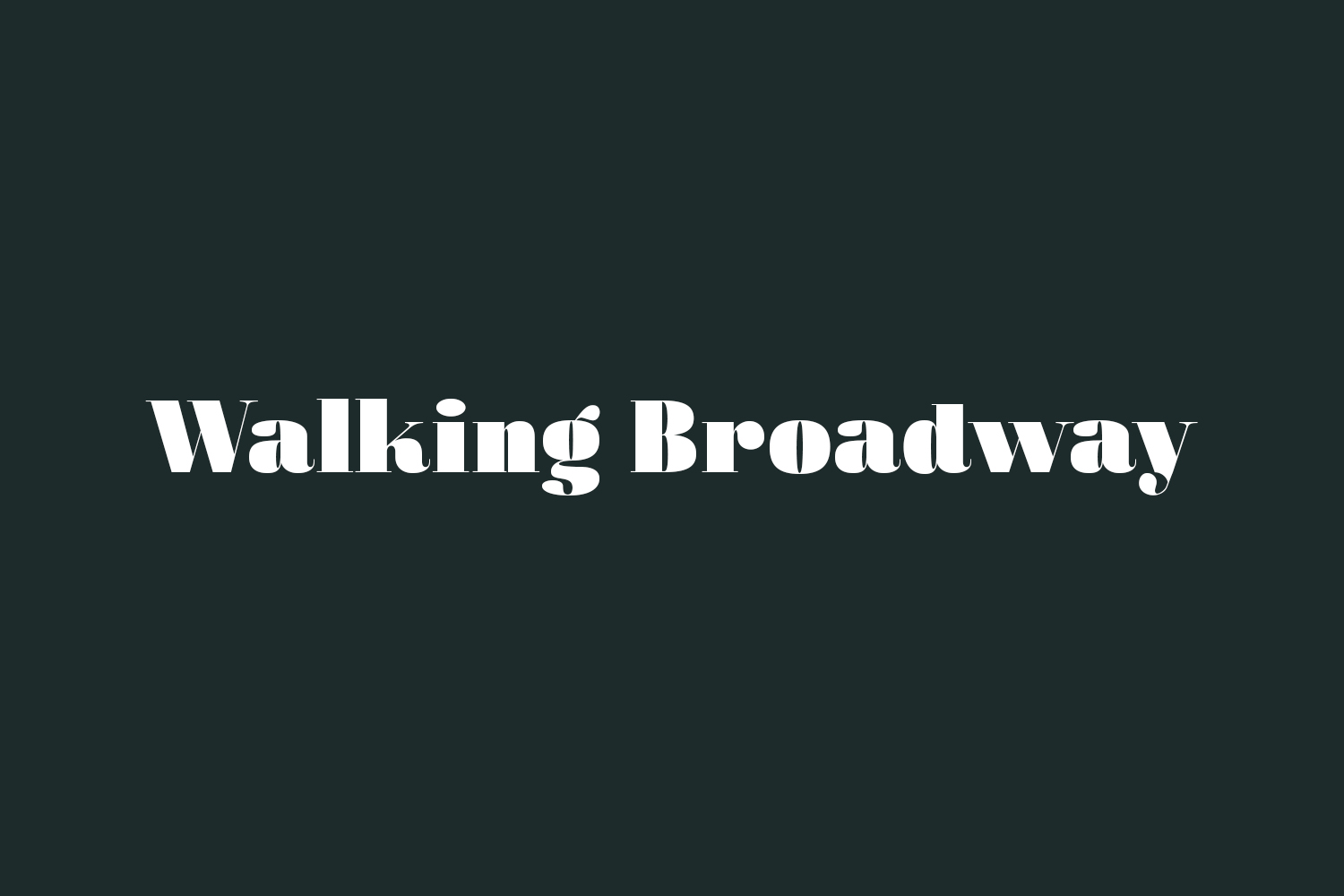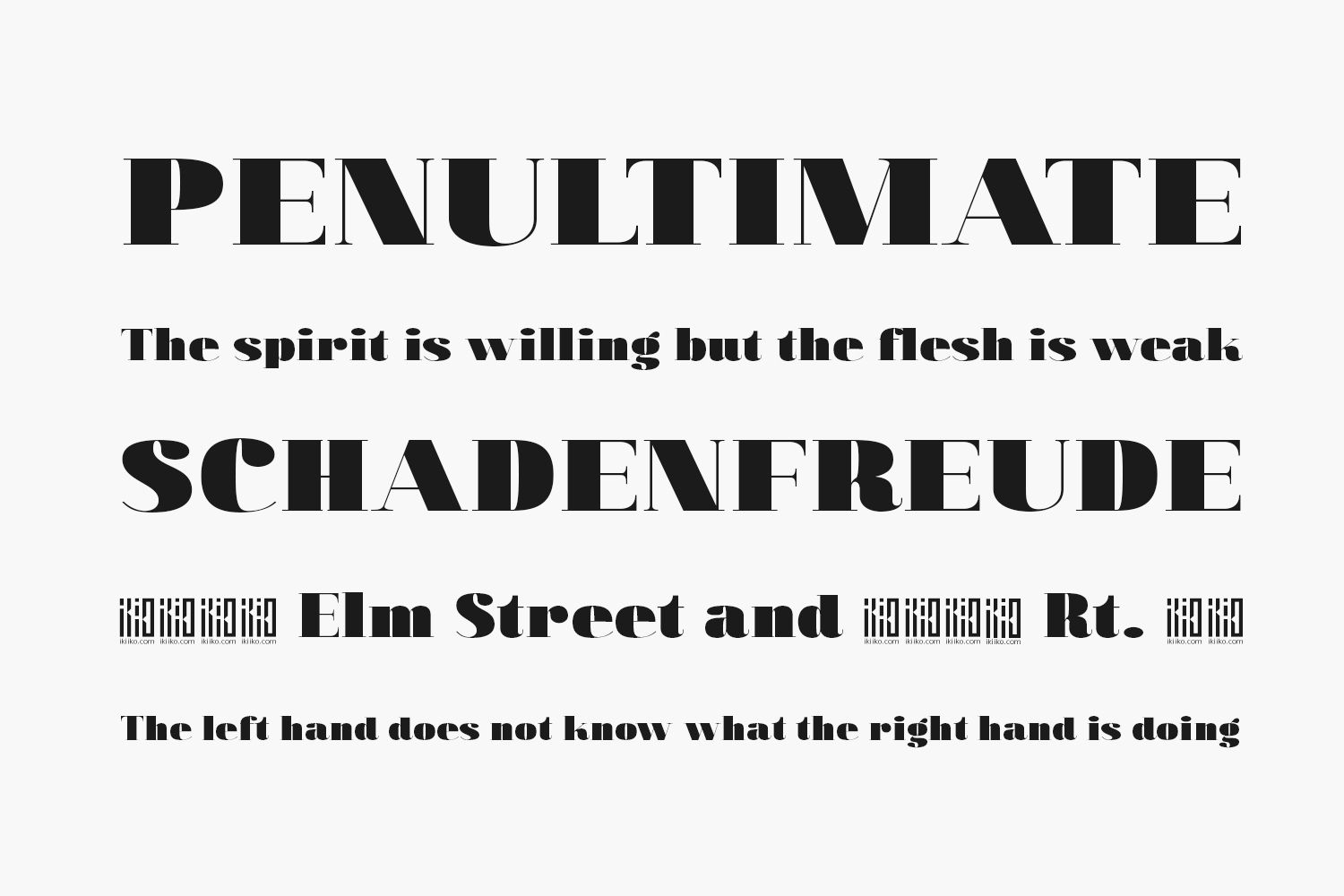
Walking Broadway Free Font is an assertive and bold display font with a cool style. Download the font for free if you need it for personal use or purchase the full version for commercial use.
Designed by Ikiiko Type